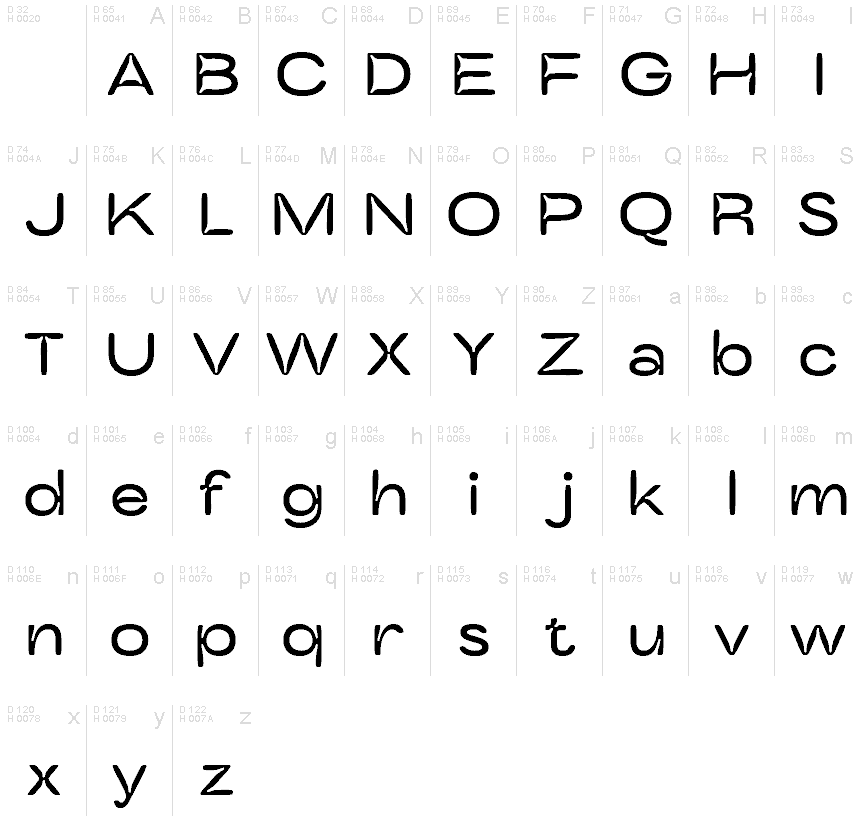
CSBeatrixDrawn-Regular Demo
CS Beatrix Drawn font is a template design by Craft Supply Co., who crafted it in expanded width structure. Learning from typical flaws of the sans serif style, each glyph was stylized accordingly for maintaining high cap height and vertical letter symmetry. The result is something within geometric influence, sleek appreance, and minimalist contemporary aesthetic.
Equipped with its features, CS Beatrix Drawn can appear in your favorite book cover or poster design as a headline typeface. It works also for logos, magazines, stationery items such as notebook covers or letterheads or newspapers. Finally to finish would be making creative yet isolated social media posts that will definitely grab attention.
CS Beatrix Drawn Demo